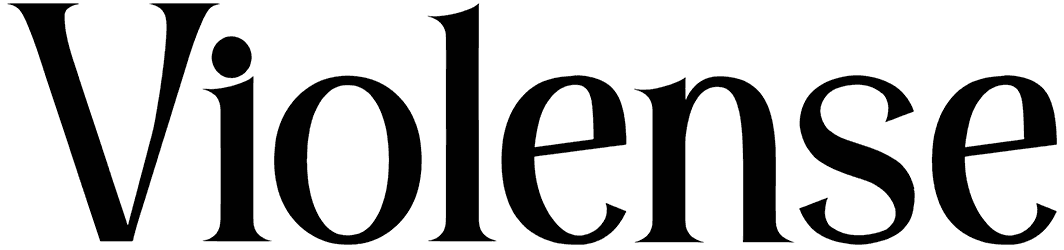
Violense Font
A lot of viewers are going to love your design when you set a popular and timeless letterform like this serif font on your words. The classic and unique face of this fashion font will make your design look professional. Put the Violense font on your projects such as an antique shop façade and become memorable.